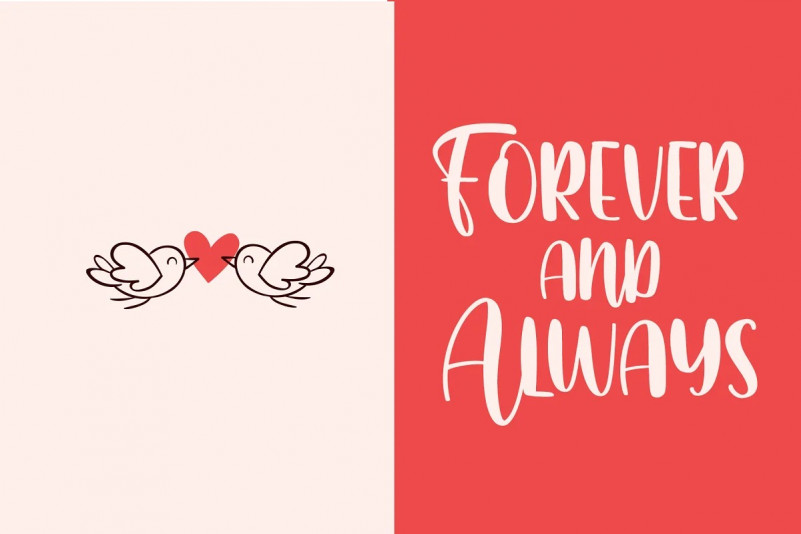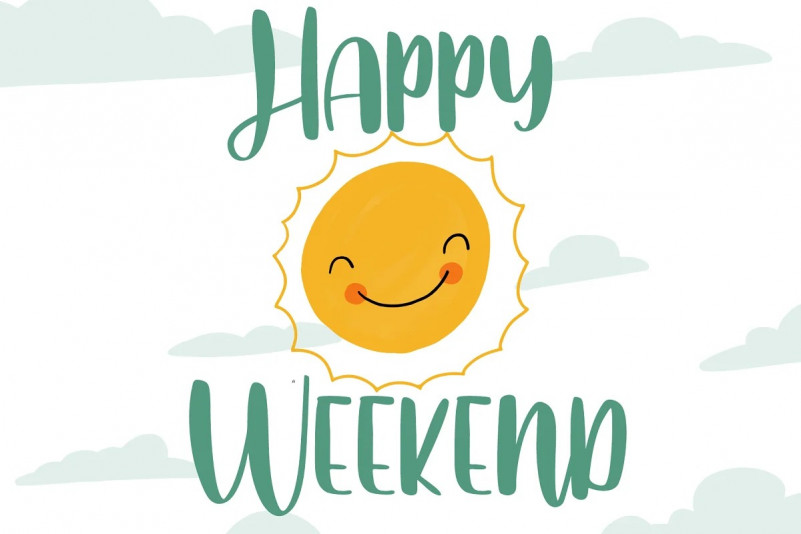
Home Crafts Font
Home Crafts Script Font is a loveley handwritten font. Whether you’re looking for fonts for social media or calligraphy scripts for DIY projects, Home Crafts will turn any creative idea into a true piece of art! This font is PUA encoded which means you can access all of the glyphs and swashes with ease! Files Include :